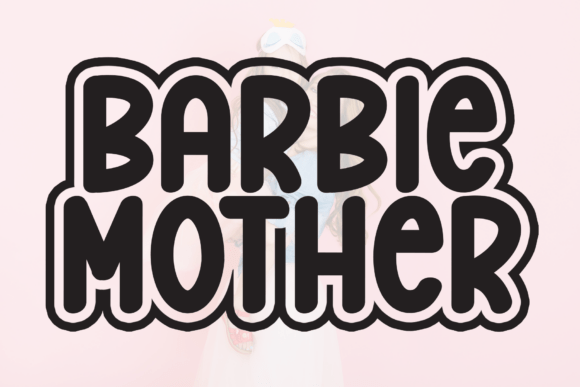
Introducing Barbie Mother Font: The Ultimate Display Font for Playful Branding
In the world of typography, fonts play a crucial role in shaping the visual identity of a brand. With thousands of fonts available, finding the perfect one that resonates with your brand’s personality can be a daunting task. However, if you’re looking for a font that exudes fun, boldness, and playfulness, look no further than the Barbie Mother Font. This display font is designed to make a statement, and its unique features make it an excellent choice for kids’ products, playful branding, crafts, and anything that needs an eye-catching headline.
What is Barbie Mother Font?
Barbie Mother Font is a fun, bold, and bubbly display font that boasts thick lines and a playful outline. Its cartoonish yet impactful design makes it perfect for a wide range of applications, from kids’ products and playful branding to crafts and eye-catching headlines. The font’s extra outline gives it a strong, sticker-like presence in any design, making it an excellent choice for brands that want to make a statement.
Key Features of Barbie Mother Font
- Fun and Playful Design: The Barbie Mother Font features a playful and fun design that is perfect for brands that want to appeal to a younger audience.
- Thick Lines: The font’s thick lines give it a bold and eye-catching presence, making it perfect for headlines and titles.
- Playful Outline: The font’s playful outline adds an extra layer of whimsy and fun to the design, making it perfect for brands that want to stand out.
- Cartoonish yet Impactful: The font’s cartoonish design makes it perfect for kids’ products and playful branding, while its impactful design ensures that it grabs attention.
- Extra Outline: The font’s extra outline gives it a strong, sticker-like presence in any design, making it perfect for brands that want to make a statement.
Use Cases for Barbie Mother Font
The Barbie Mother Font is a versatile font that can be used in a wide range of applications. Here are some use cases where the font excels:
- Kids’ Products: The font’s playful and fun design makes it perfect for kids’ products, such as toys, games, and children’s books.
- Playful Branding: The font’s bold and eye-catching design makes it perfect for playful branding, such as logos, packaging, and advertising.
- Crafts: The font’s whimsical design makes it perfect for crafts, such as DIY projects, scrapbooking, and paper crafting.
- Headlines and Titles: The font’s bold and eye-catching design makes it perfect for headlines and titles, such as posters, flyers, and brochures.
Benefits of Using Barbie Mother Font
Using the Barbie Mother Font offers several benefits, including:
- Increased Visibility: The font’s bold and eye-catching design ensures that your brand stands out and grabs attention.
- Improved Brand Recognition: The font’s unique design helps to create a consistent visual identity for your brand, making it easier for customers to recognize and remember your brand.
- Enhanced Creativity: The font’s playful and whimsical design inspires creativity and imagination, making it perfect for brands that want to think outside the box.
- Versatility: The font’s versatility makes it perfect for a wide range of applications, from kids’ products to playful branding.
- Use it for Headlines and Titles: Use the font for headlines and titles to grab attention and create a bold statement.
- Experiment with Colors: Experiment with different colors to find the perfect combination that works for your brand.
- Use it for Branding: Use the font for branding, such as logos, packaging, and advertising, to create a consistent visual identity.
In conclusion, the Barbie Mother Font is a fun, bold, and bubbly display font that is perfect for kids’ products, playful branding, crafts, and anything that needs an eye-catching headline. Its unique features, such as thick lines and a playful outline, make it an excellent choice for brands that want to make a statement. With its versatility and range of use cases, the Barbie Mother Font is an excellent addition to any designer’s font library.
- What is the Barbie Mother Font? The Barbie Mother Font is a fun, bold, and bubbly display font with thick lines and a playful outline.
- What is the font suitable for? The font is suitable for kids’ products, playful branding, crafts, and anything that needs an eye-catching headline.